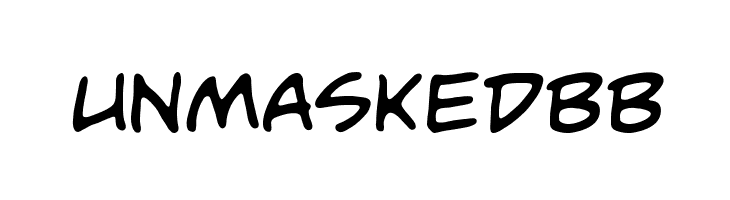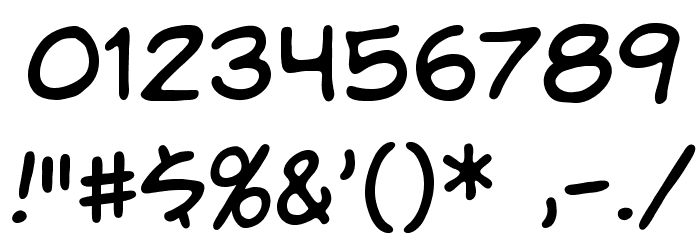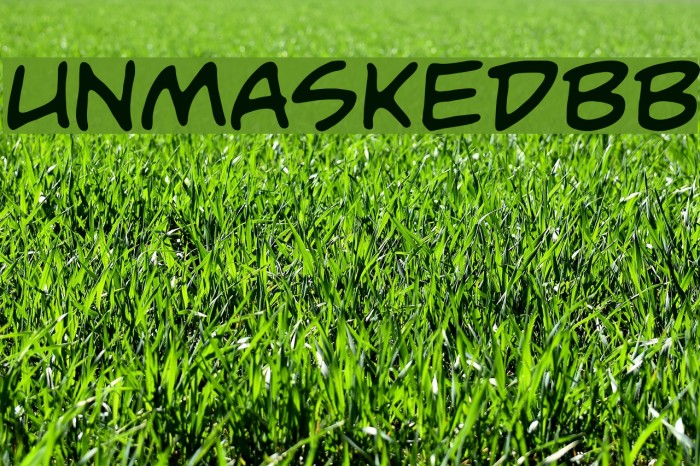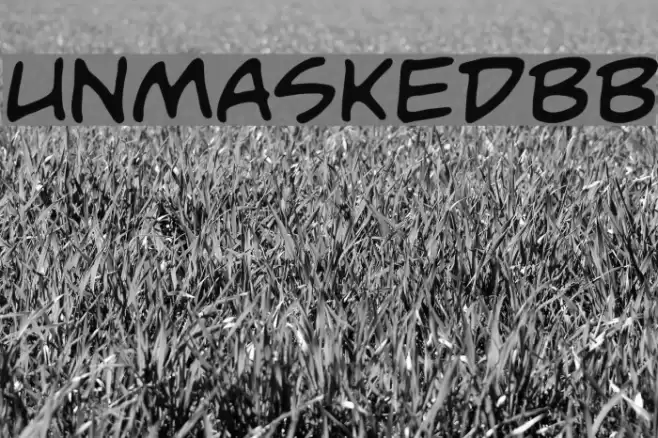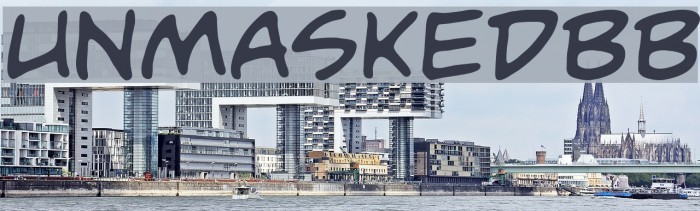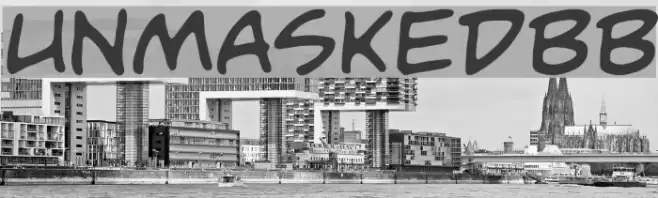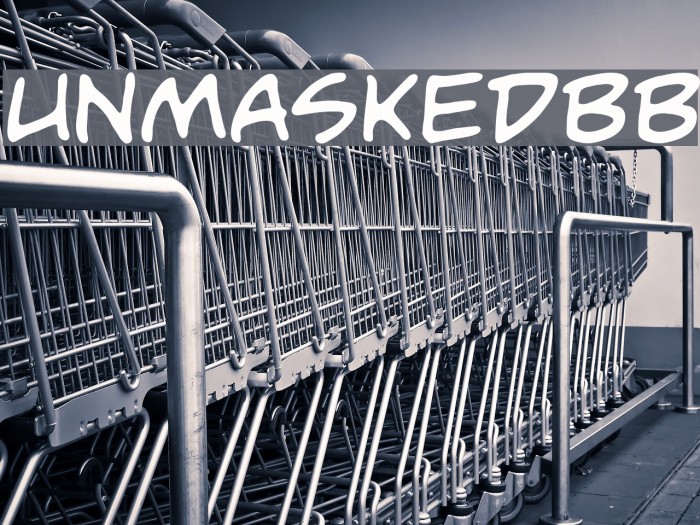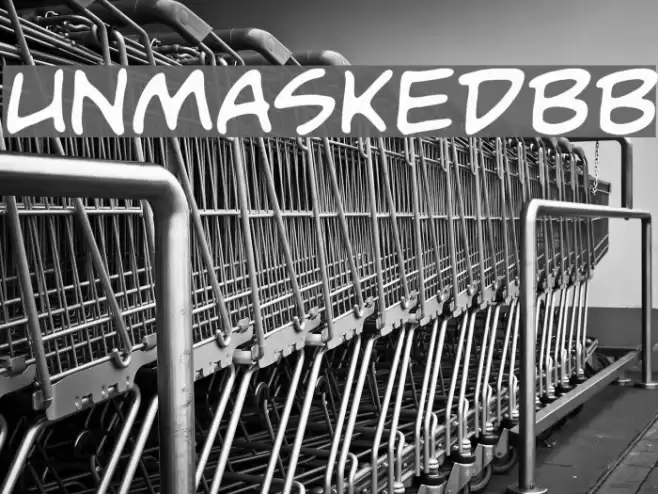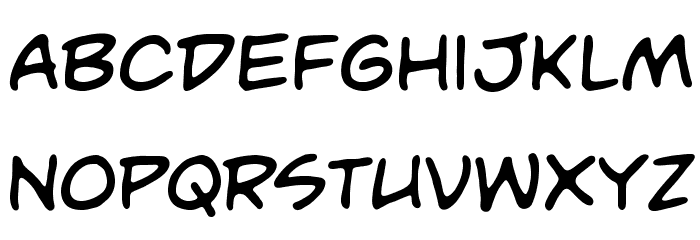
UnmaskedBB Font
UnmaskedBB Description
This font features a playful and casual handwritten style, characterized by its smooth, rounded strokes and slightly irregular letterforms. The uppercase and lowercase letters maintain a consistent flow, giving a sense of movement and energy. The numbers and special characters are designed to match the overall aesthetic, ensuring a cohesive look across all elements. The font's informal nature makes it approachable and friendly, suitable for projects that require a personal touch.
| Overall Style | Casual |
| Use Case | Headlines, Informal text, Branding |
| Proposed Projects | Ideal for greeting cards, children's books, casual branding, and social media graphics. |